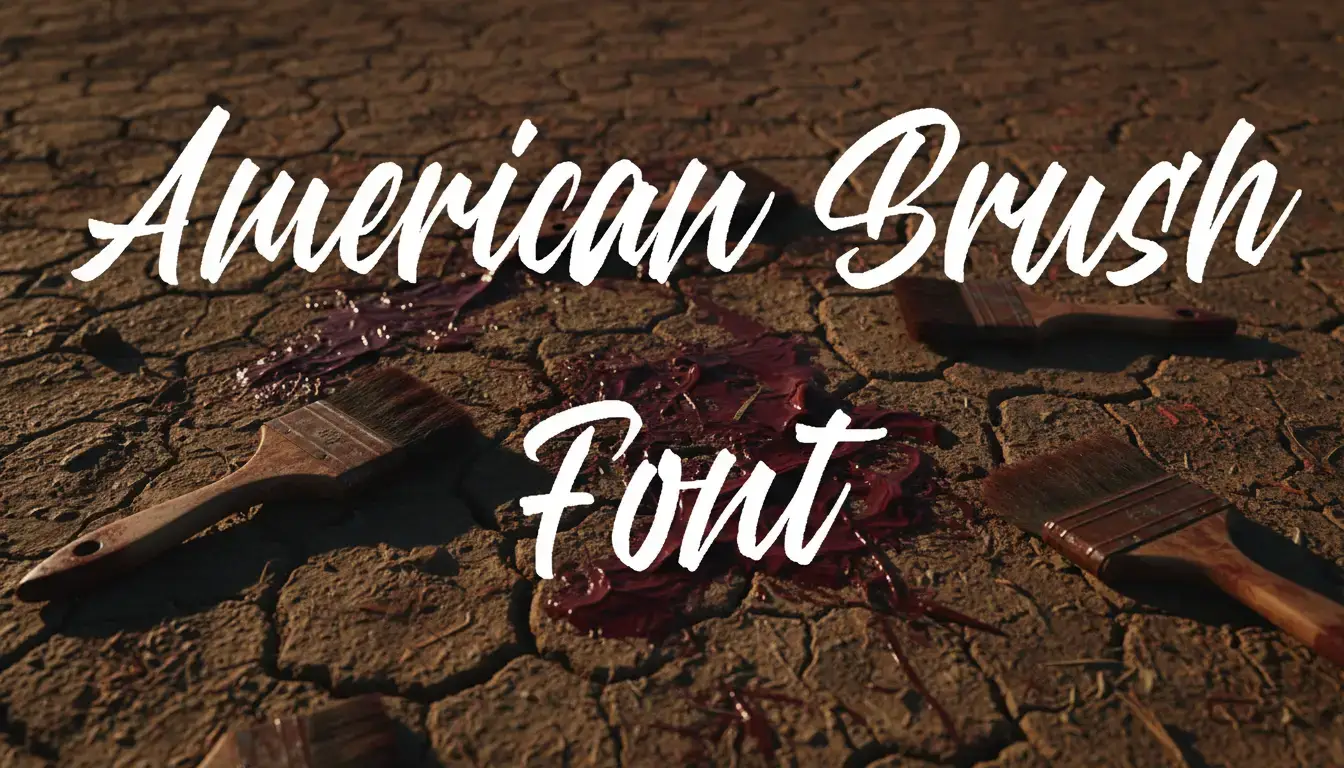
American Brush Font
American Brush is a contemporary, expressive script typeface designed by Blankids Studio. It replicates the fluid energy and organic texture of hand-painted brush lettering, striking a balance between playful creativity and elegant design.
American Brush
American Brush is a script font created by Bangkit Tri Setiadi and released through Blankids Studio. The letters have the smooth movement of real pen lettering, which is why even a single name looks special in it. You can download it for free and test it with your own words in the preview above.
What You Can Type With American Brush
American Brush covers the full alphabet in upper and lowercase, plus all ten numbers, so you can set names, dates and prices without switching fonts. Everyday marks like &, !, ? and @ are there too. There are no accented letters like é or ñ, so it's best kept to English text.
Where American Brush Works Best
Think of American Brush for wedding invitations, logos and signature-style headings. Script fonts read best in short bursts, so keep it to names, titles and one-line quotes. Skip all caps: script capitals are drawn to start a word, not to fill one.
Does American Brush support accented letters?
No. American Brush has no accented letters such as é, ñ or ü, so it's best for English text.